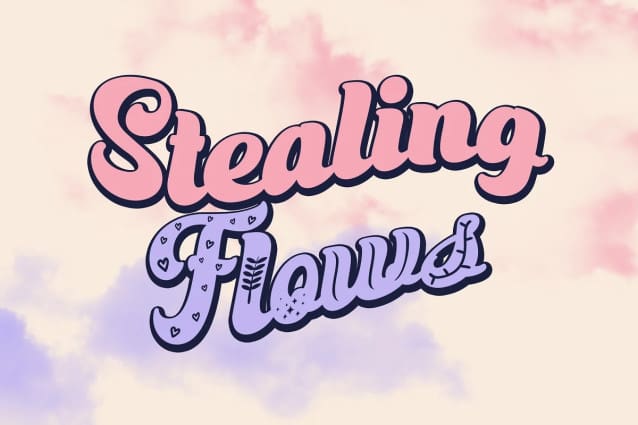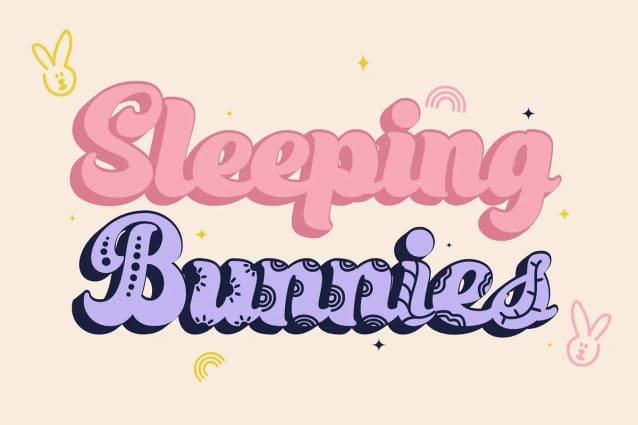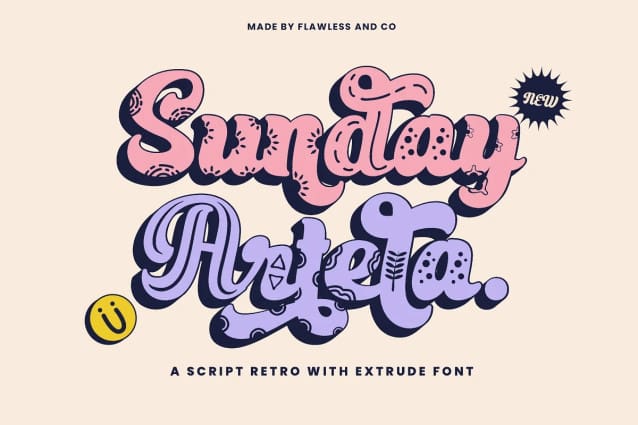
Sunday Artela Font
Sunday Artela Font, a font that effortlessly blends playful script elements with a retro charm, creating a nostalgic yet contemporary feel. This unique typeface doesn’t just stop at capturing attention — it transports your designs to a world where every letter tells a story. Sunday Artela doesn’t just bring letters to life; it introduces a dynamic trio of styles — regular, solid, and fun — adorned with patterns in fun styles that add an extra layer of delight to your designs.